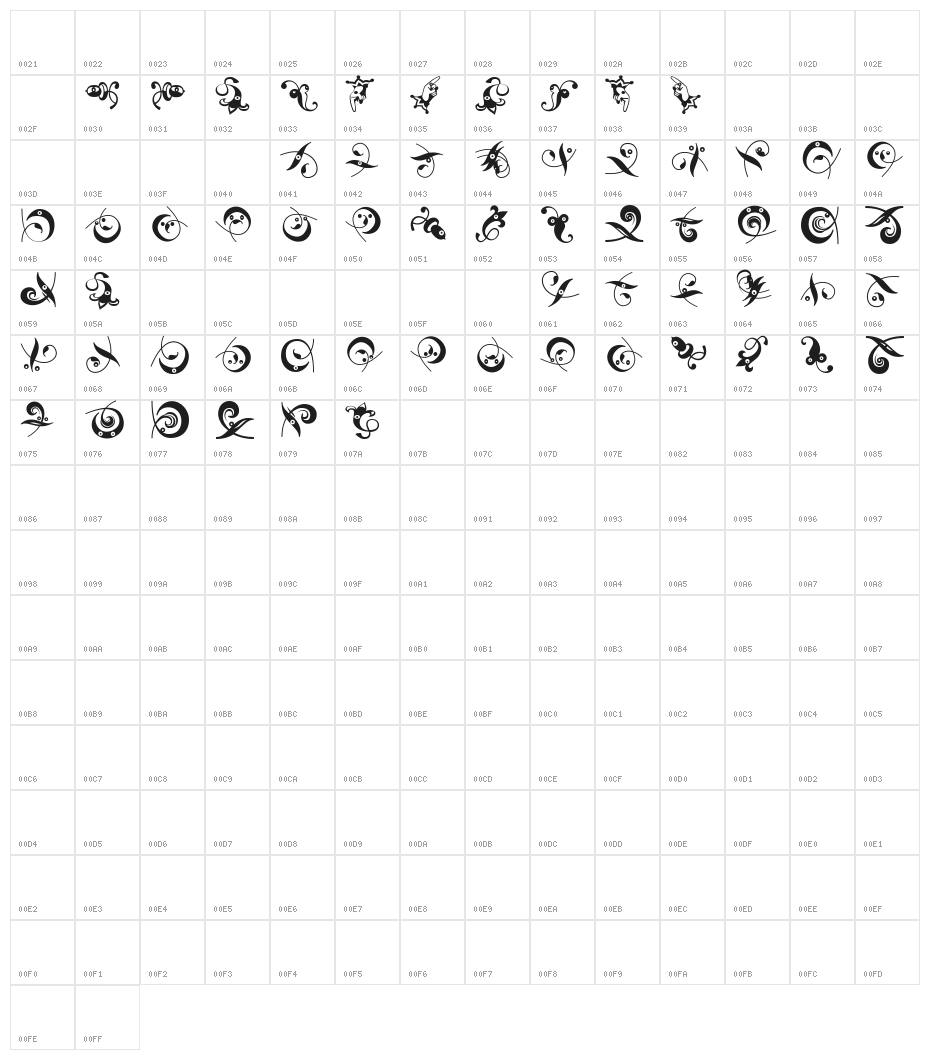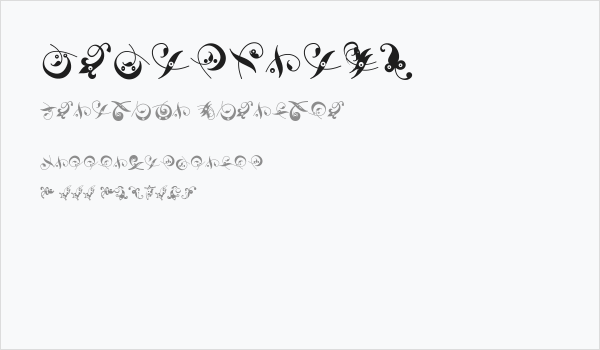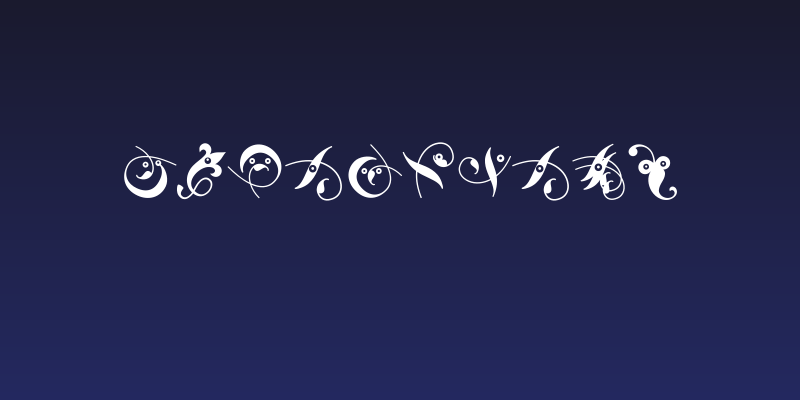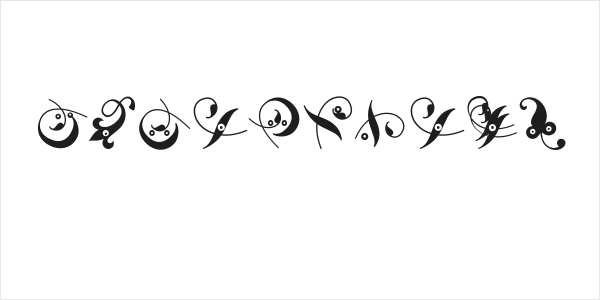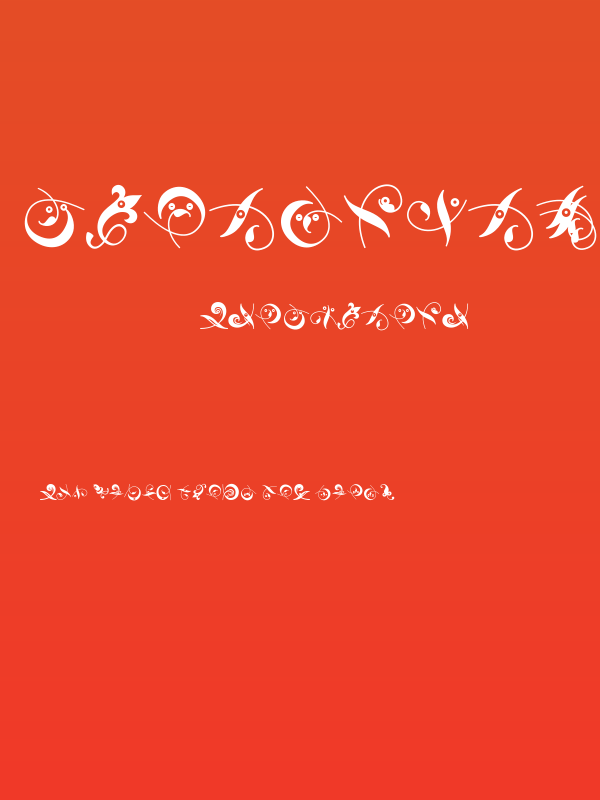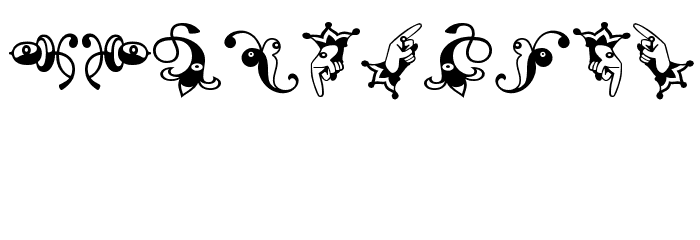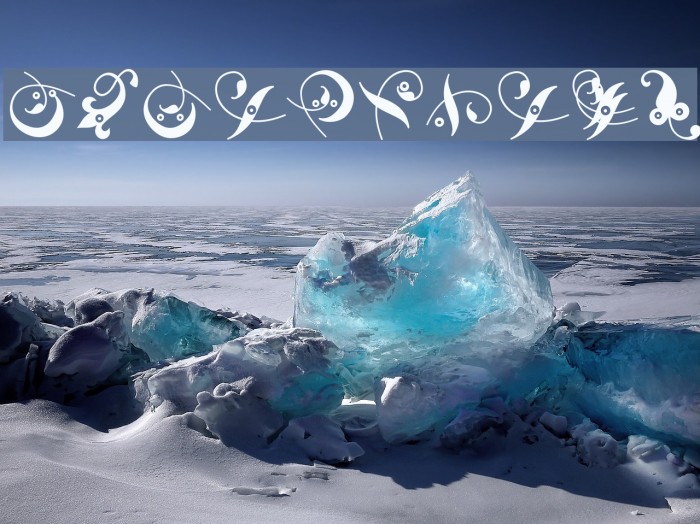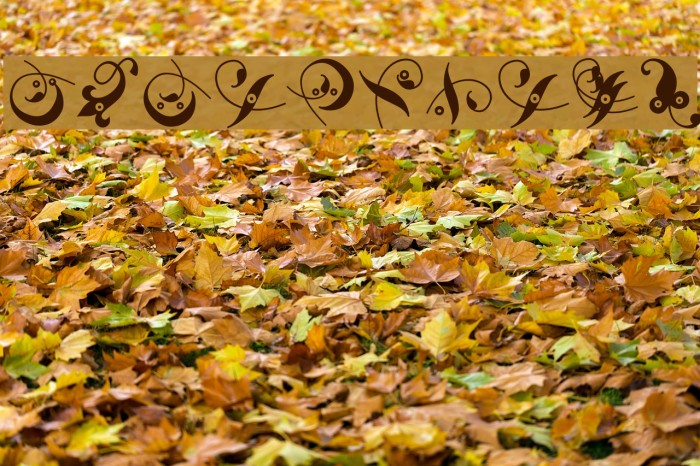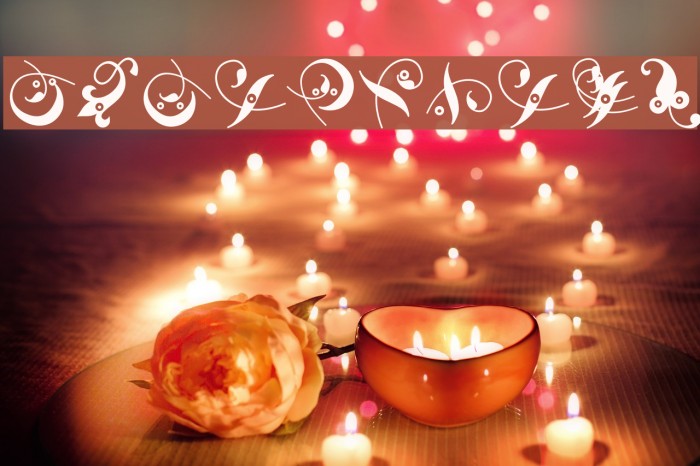
OrnamHeads Font
OrnamHeads Description
This is a highly decorative and artistic font that incorporates whimsical and abstract shapes resembling faces and figures. Each character is uniquely designed with intricate details, making it stand out as a piece of art rather than just a letter. The font features a playful and imaginative style, with elements that suggest movement and expression. The characters are composed of bold strokes and curves, creating a dynamic and lively appearance. This font is not suitable for body text due to its complexity but serves as an excellent choice for creative and artistic projects where visual impact is desired.
| Proposed Projects | Ideal for artistic posters, creative branding, unique invitations, and decorative headlines. |